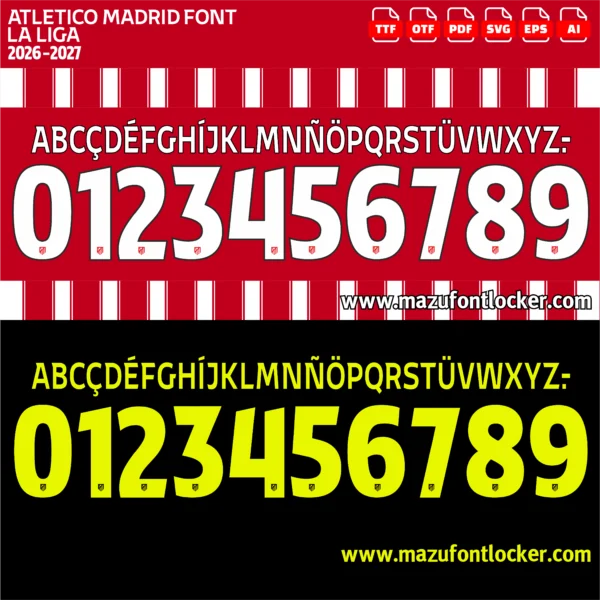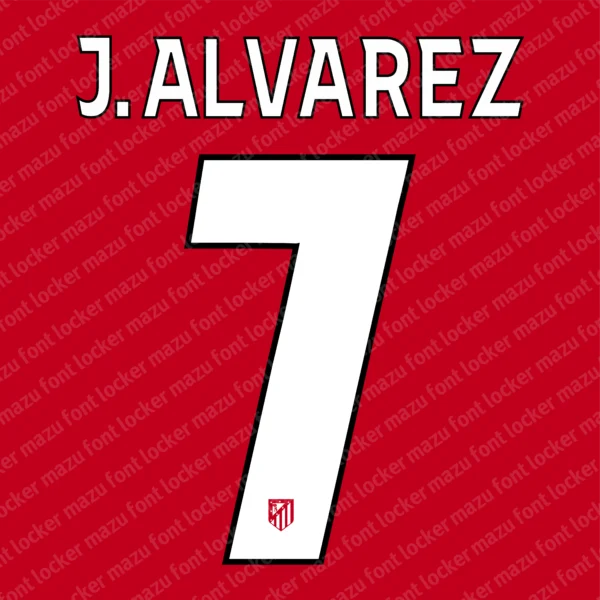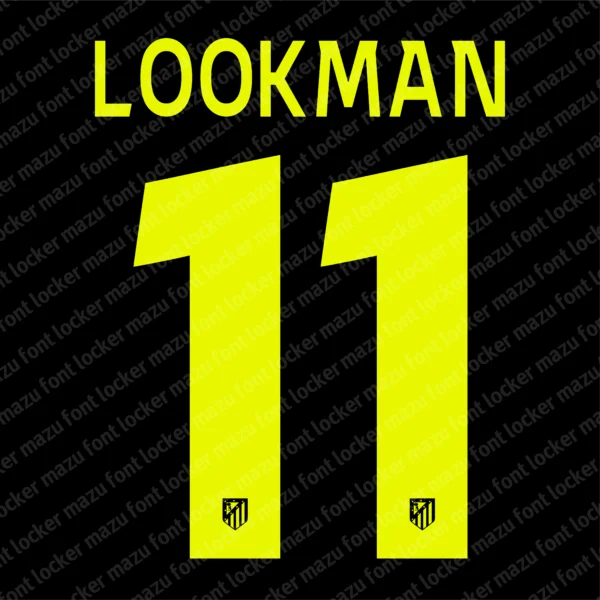
Atletico Madrid 2026-2027 Font Vector – Stunning Rojiblanco Masterpiece
This font captures the unstoppable, precision-forged lettering inspired by Atletico Madrid’s iconic red-and-white identity, proud Madrid heritage, legendary Los Colchoneros tradition, and fearless warrior-like football spirit — delivering premium authenticity and explosive match-day energy for professional jersey mockups, football graphics, sports branding, fan designs, and high-end creative projects.
Atlético Madrid 2026-2027 Font Vector – Stunning Red & White Typeface
The Atlético Madrid 2026-2027 Font Vector is a premium typeface that accurately recreates the distinctive match lettering associated with Atlético Madrid during the 2026-2027 football season. This high-quality vector font kit captures the bold, clean, and instantly recognizable typography that perfectly complements the club’s iconic red and white identity.
Designed for professional designers, football enthusiasts, jersey collectors, and passionate Atlético Madrid supporters, the Atlético Madrid 2026-2027 Font Vector delivers exceptional authenticity for creating realistic jersey mockups, football merchandise, social media graphics, match posters, squad designs, and custom fan artwork. Every character has been carefully recreated to reflect the powerful and precise visual style of one of Spain’s most traditional and passionate football clubs.
Why Choose Atlético Madrid 2026-2027 Font Vector
This font stands out thanks to its precise vector construction and authentic club-inspired styling. Every letter and numeral has been meticulously recreated to match the distinctive football lettering aesthetic associated with Atlético Madrid during the 2026-2027 season and its domestic and European campaigns.
Whether you’re producing professional football kit templates, custom jersey concepts, or eye-catching football content, the Atlético Madrid 2026-2027 Font Vector delivers a genuine match-ready appearance inspired by the identity of Los Colchoneros.
The lettering featured in the Atlético Madrid 2026-2027 Font Vector combines clean geometric lines with bold modern proportions. The result is a premium and highly readable typeface that reflects Atlético Madrid’s proud football heritage, iconic red and white colors, Madrid identity, and passionate global fanbase.
- Complete uppercase A–Z alphabet and numbers 0–9 in authentic Atlético Madrid 2026-2027 inspired style
- Special Atlético Madrid badge glyph – Press the “:” (Colon) key to insert the club badge
Atlético Madrid 2026-2027 Season
The 2026-2027 season marks another exciting chapter for Atlético Madrid as the Madrid club prepares to compete across domestic and international football. The club begins preparations for the 2026-2027 campaign with preseason fixtures and training as they build momentum for the new season in LaLiga and beyond. The club’s official schedule continues to cover its domestic ambitions and any European campaigns throughout the year. Wearing their iconic red and white colors, Atlético Madrid continue to represent a proud football tradition built on passion, community spirit, and a strong connection with supporters at the Riyadh Air Metropolitano and around the world.
The Atlético Madrid 2026-2027 Font Vector is an independently designed typeface package inspired by the official shirt lettering and visual identity associated with Atlético Madrid during the 2026-2027 football season. It has been carefully recreated for football enthusiasts, graphic designers, collectors, jersey creators, and fans producing custom football concepts, digital artwork, and fan-made projects. Please note that this is a fan-made design resource and is not an official product of Atlético Madrid, LaLiga, UEFA, or any associated organization.